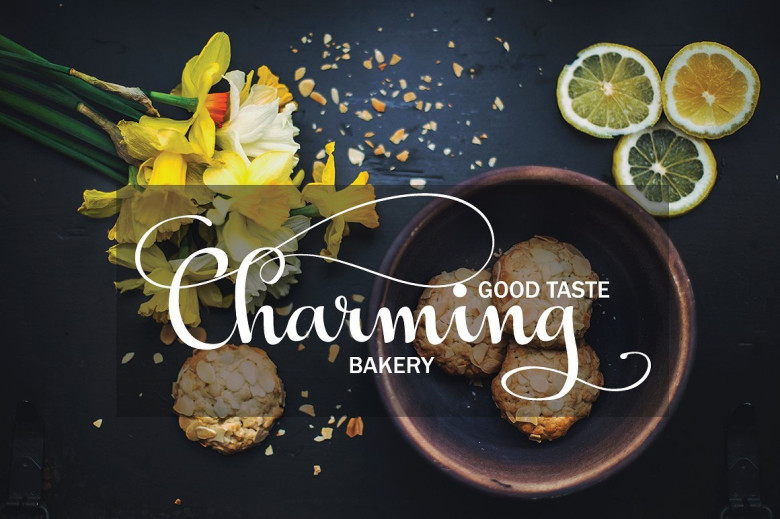
Ihlimia Romantic Script Font
Ihlimia is romantic script font, every single letters have been carefully crafted to make your text looks beautiful.
This font is ideal for branding and decorate your any project, are perfect for wedding invitation or your blog. Also with their help, you can create a logo or beautiful frame for your home. Or just use for your small business, book covers, stationery, marketing, magazines and more.